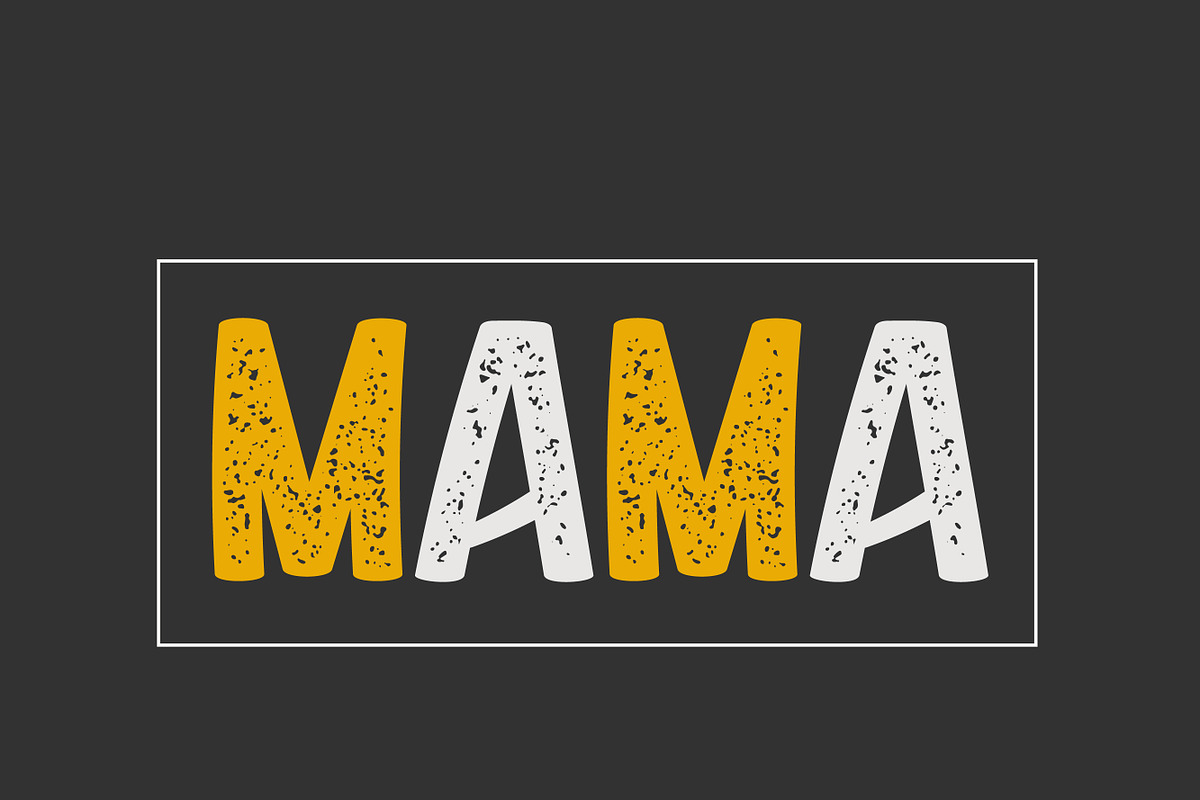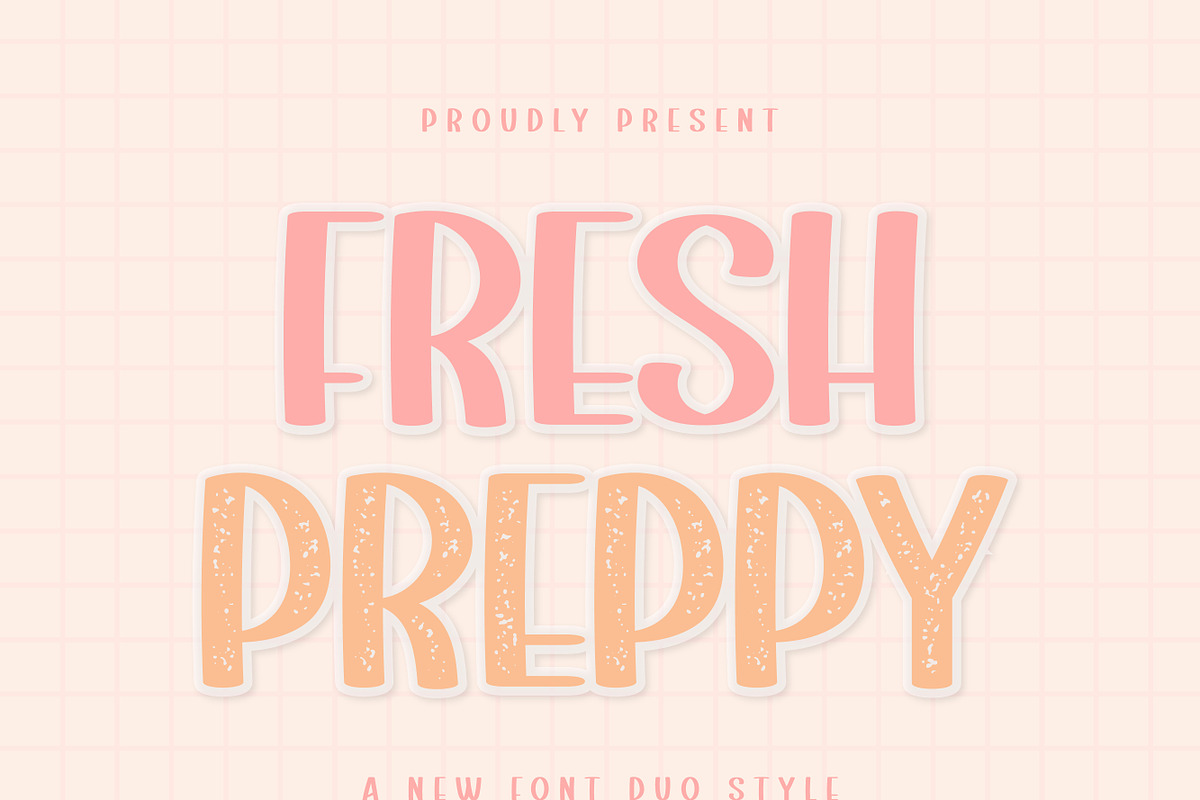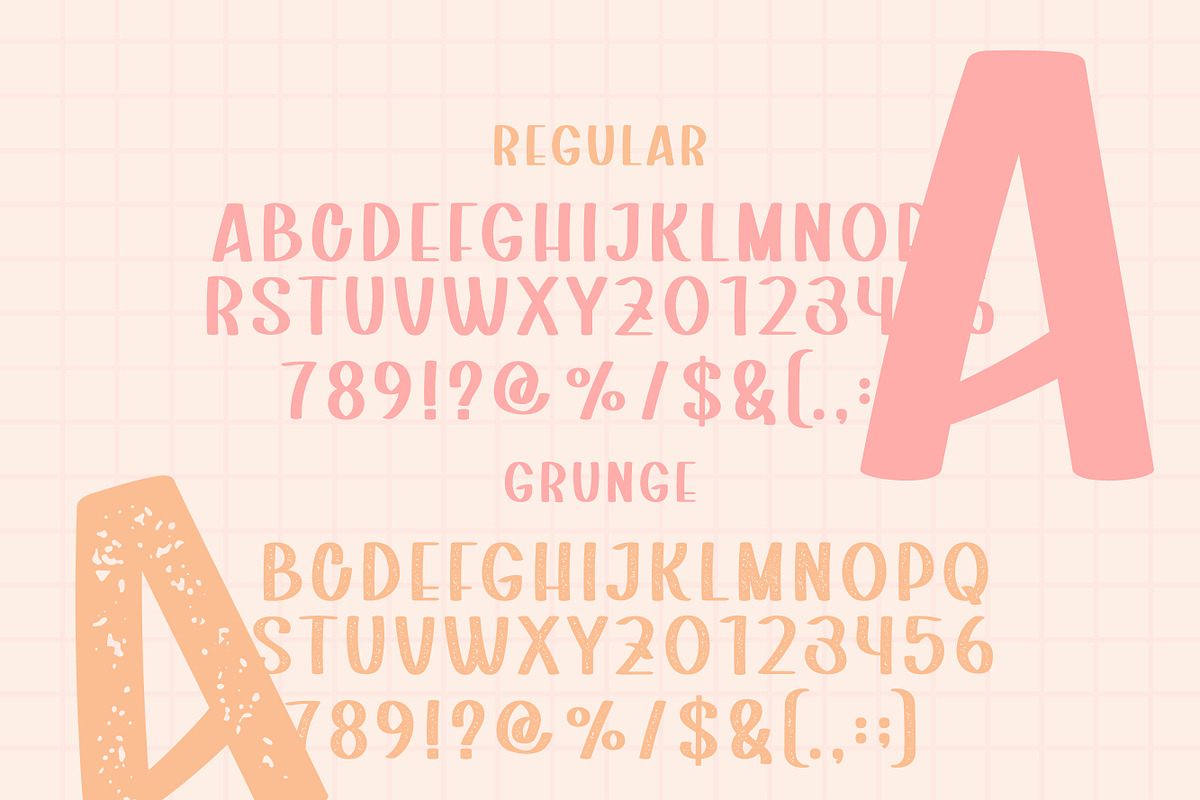
Fresh Preppy | Clean Distressed Font
Fresh Preppy is a charming font duo that combines a clean regular style with a textured grunge version, giving you the flexibility to create both polished and vintage-inspired designs. With its playful preppy personality, soft curves, and handcrafted feel, this font is perfect for branding, packaging, social media graphics, posters, t-shirts, stickers, invitations, and trendy retro projects.
The Regular style delivers a clean and friendly look, while the Grunge style adds a distressed texture for a more authentic vintage appearance. Mix and match both styles to create eye-catching typography with extra personality.